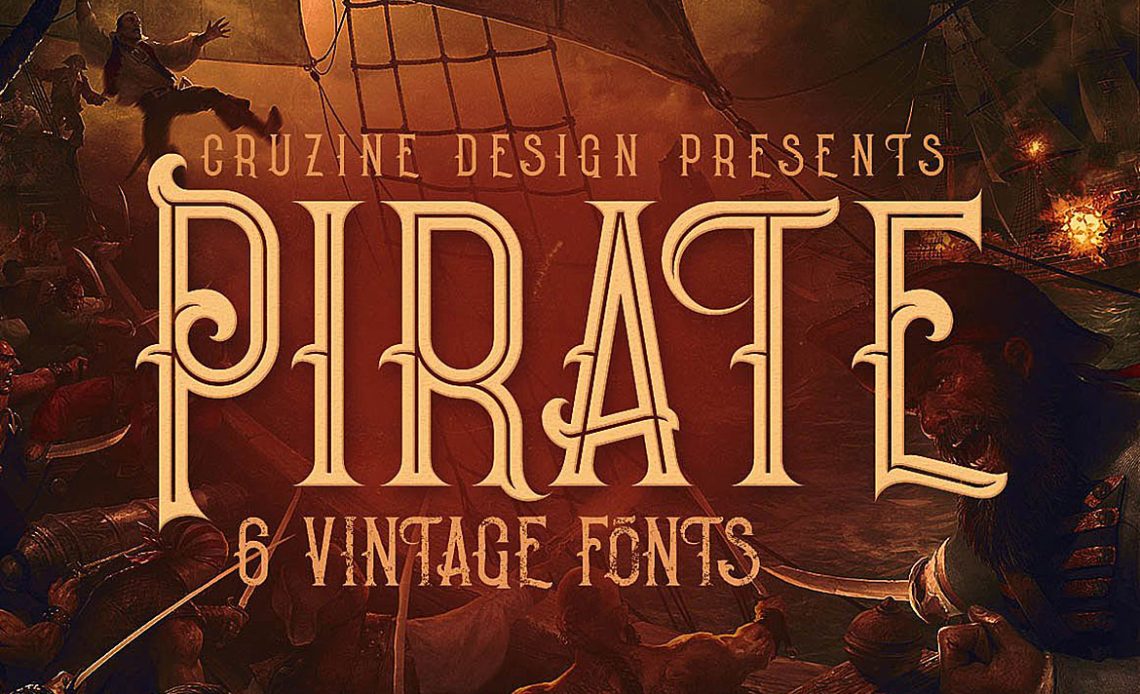
Ahoy, matey! Are you ready to add some swashbuckling charm to your design projects? Look no further than Pirate Font, the perfect display font for any project in need of some piratical panache.
Created by the talented team at JumboDesign, Pirate Font is a thematic display font that will transport your designs to the high seas. But don't be fooled by its name - Pirate Font is more versatile than you might think. With several font styles available, this font can be used in a wide range of designs, from posters to packaging to social media graphics.
What sets Pirate Font apart from other display fonts on the market is its attention to detail. Each letter has been crafted with care to capture the essence of the seafaring life. The bold and daring lines of the font will make your text stand out, while the elegant curves add a touch of sophistication to any design.
Whether you're designing a logo for a swashbuckling startup or creating graphics for a themed event, Pirate Font is the perfect choice. Its distinctive style will capture the attention of your audience and leave a lasting impression.
But don't just take our word for it - try Pirate Font for yourself and see the difference it can make in your designs. With its wide range of finishes and options, this font is sure to become a go-to choice for any designer looking to add a touch of adventure to their work.